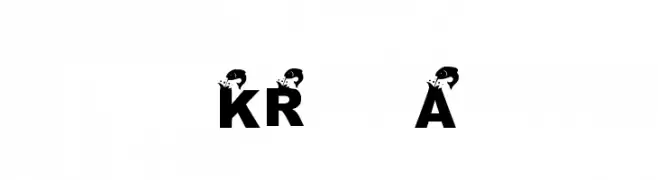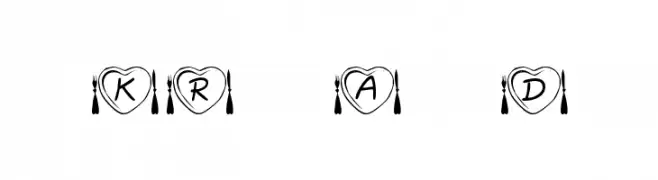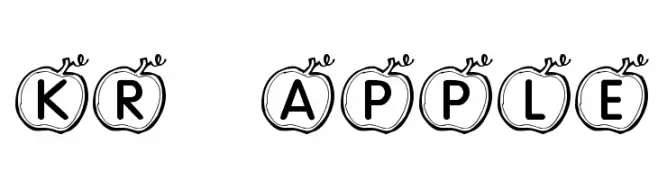
• KR Angler
A bold, geometric sans-serif font with a modern and assertive style.
• KR Anniversary Dinner
A decorative font with letters inside heart shapes, accented by cutlery.
• KR Anniversary Dinner
A decorative font with letters inside heart shapes, flanked by cutlery.
• KR Apple
A playful font with letters inside apple shapes, ideal for fun and educational projects.
• KR Apple
A playful font with letters inside apple shapes, perfect for whimsical projects.
• KR Arrow Heart
A decorative font with letters inside heart shapes pierced by arrows.
• KR Arrow Heart
A playful, heart-themed decorative font with bold letters and arrow accents.
• KR B'ball
A playful, basketball-themed decorative font with bold characters.
• KR B'ball
A playful, basketball-themed decorative font with bold, uppercase characters.
• KR Birdy
A decorative font with bold letters and intricate bird motifs.